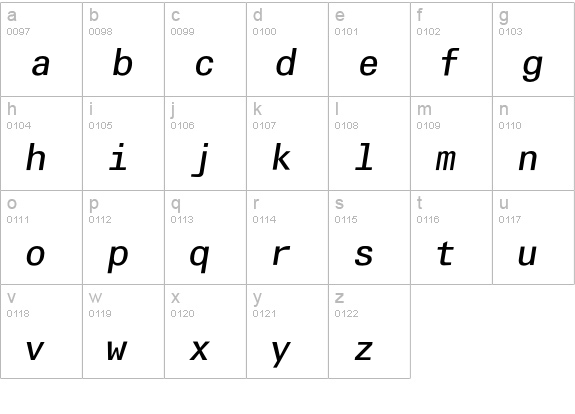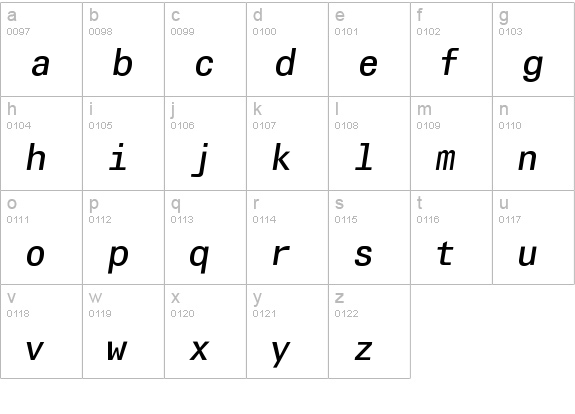
OlympiaEF-LightOblique Font Details
The OlympiaEF-LightOblique font is a sleek and elegant typeface that exudes sophistication and modernity. Its light oblique design adds a touch of flair and style to any project, making it perfect for conveying a sense of professionalism and creativity. With its clean lines and subtle curves, this font is versatile and can be used for a wide range of design applications. What makes the OlympiaEF-LightOblique font even more appealing is that it is available for free download at FontsMarket.com. This means that you can easily access this high-quality font at no cost, making it a valuable addition to your font library. Whether you're working on a branding project, a website design, or any other creative endeavor, the OlympiaEF-LightOblique font is sure to enhance your work with its refined and contemporary aesthetic. Download this font today and elevate your designs with its timeless appeal.